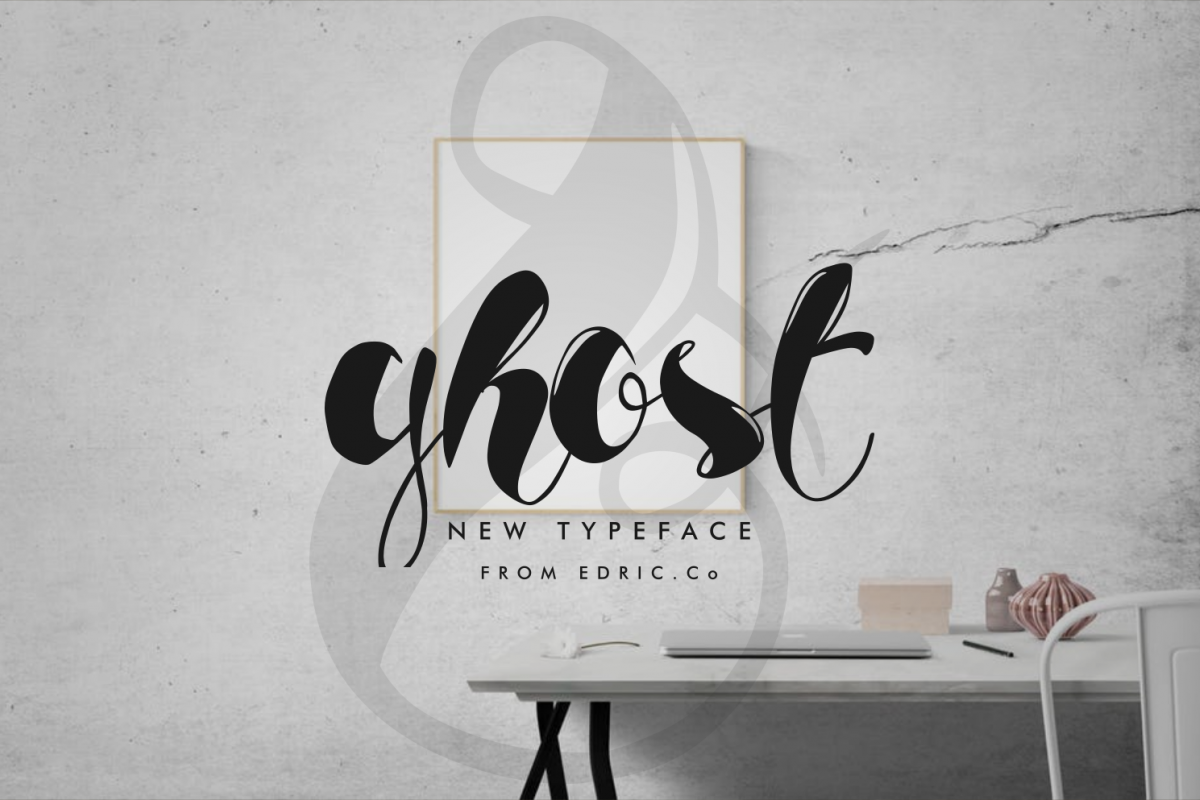
Ghost
Hey Hey Hey! It’s us again.Meet our new family : GHOST ! Dont be scared, it’s a Script Calligraphy Duo. Got 2 styles: inline and regular. It’s bold, beauty yet clearly unique.Made by HAND from sketch. This sophisticated handwritten calligraphy font will be awesome for any projects that need handwriting that looks elegant, natural, stylish, classy, strong and beautiful.Will be perfect for branding, logo, photography, business card ,signature, flyer, poster /poster, presentation, wedding/birthday/shower invitation etc.This font will Work on PC & Mac with Simple installations. Accessible in the Adobe Illustrator, Adobe Photoshop, Adobe InDesign, even work on Microsoft Word. It’s also PUA Encoded Characters – Fully accessible without additional design software.Purchase with confidence! =)